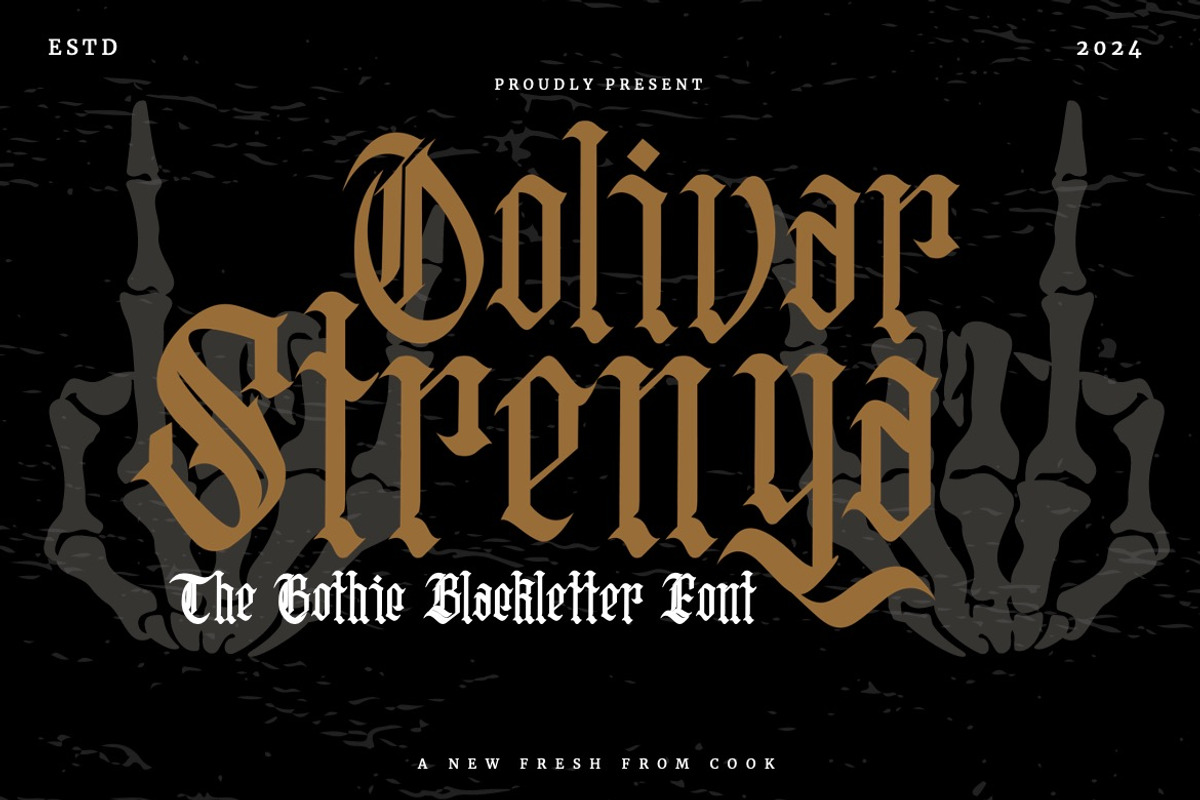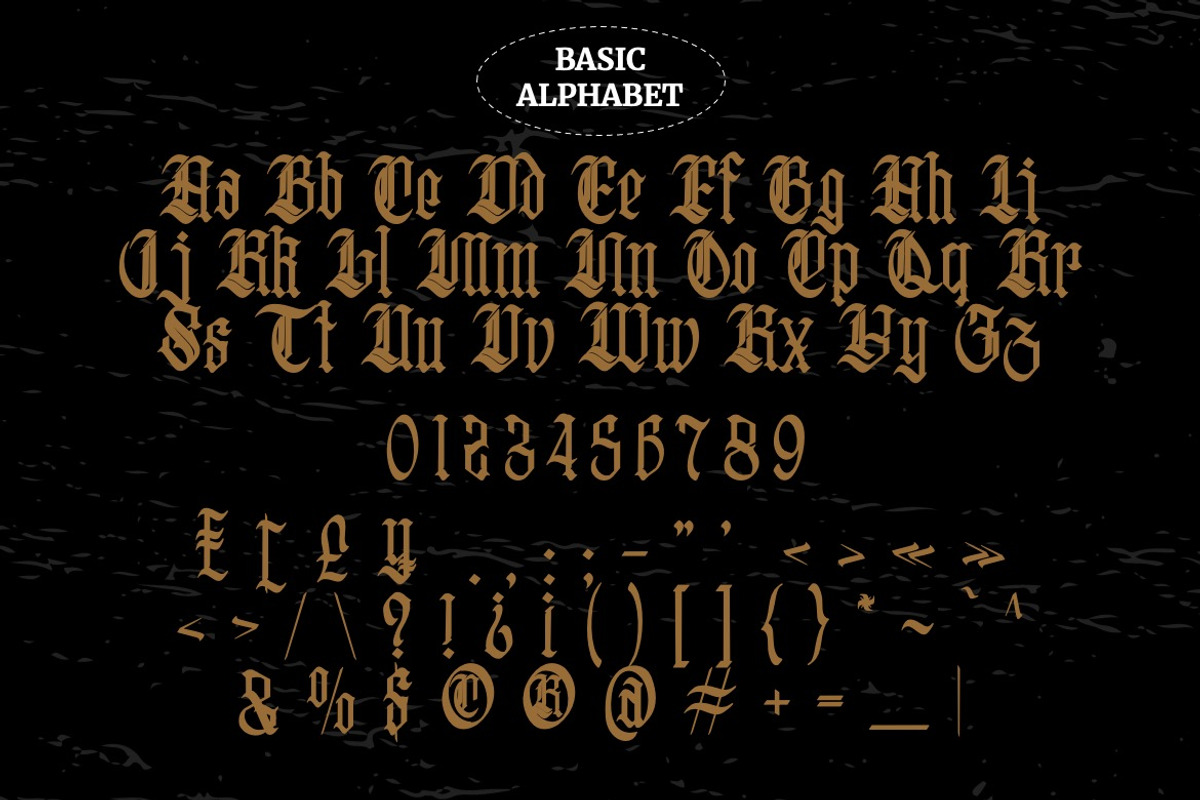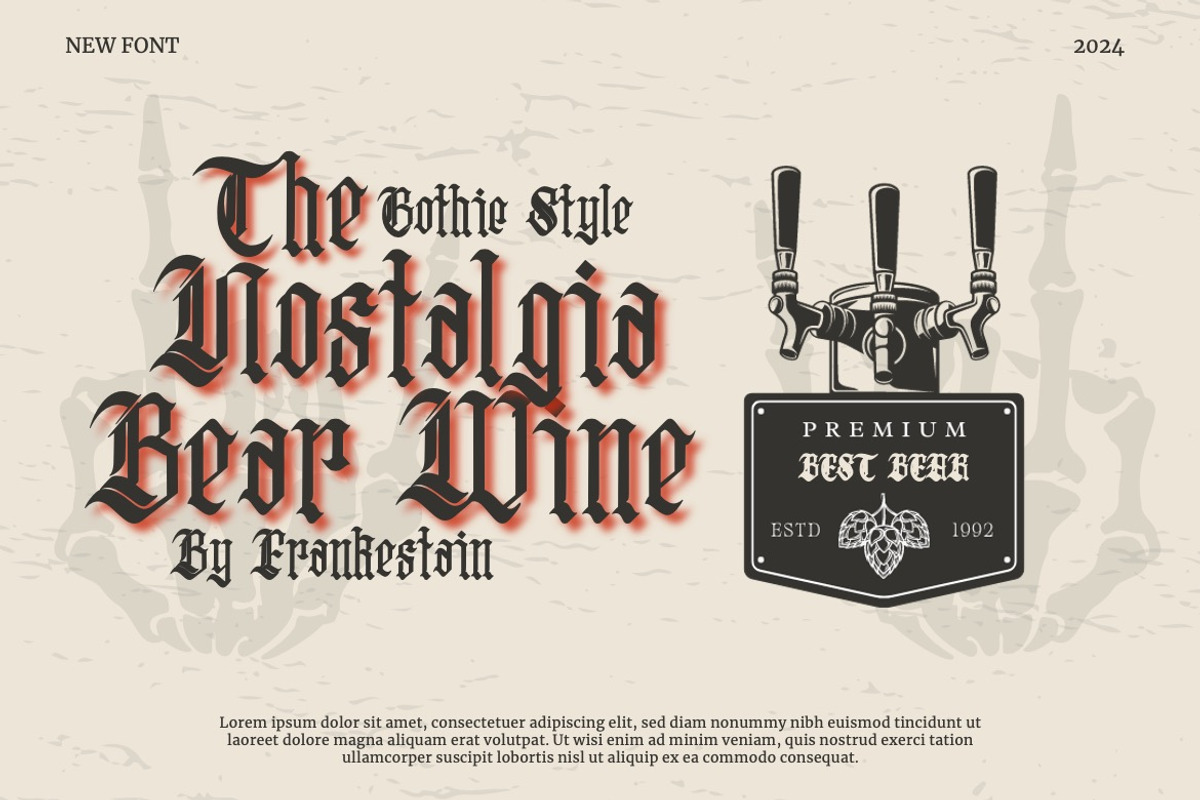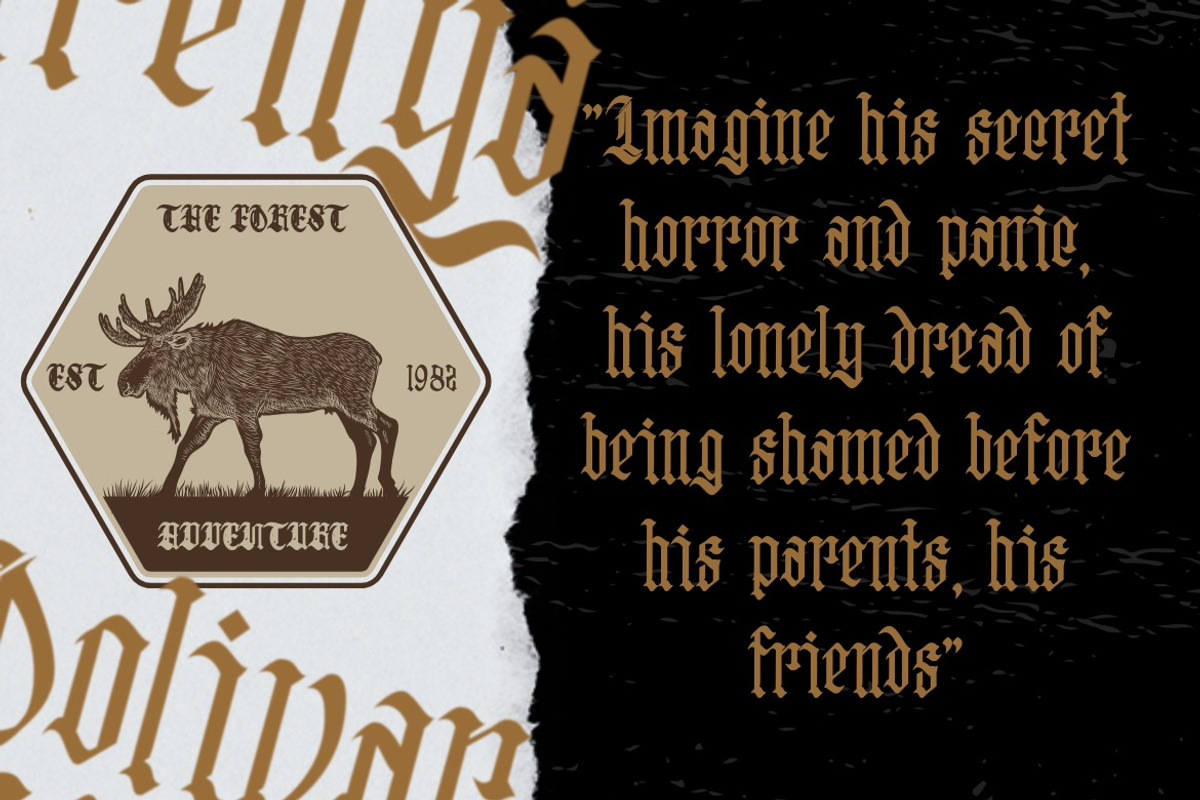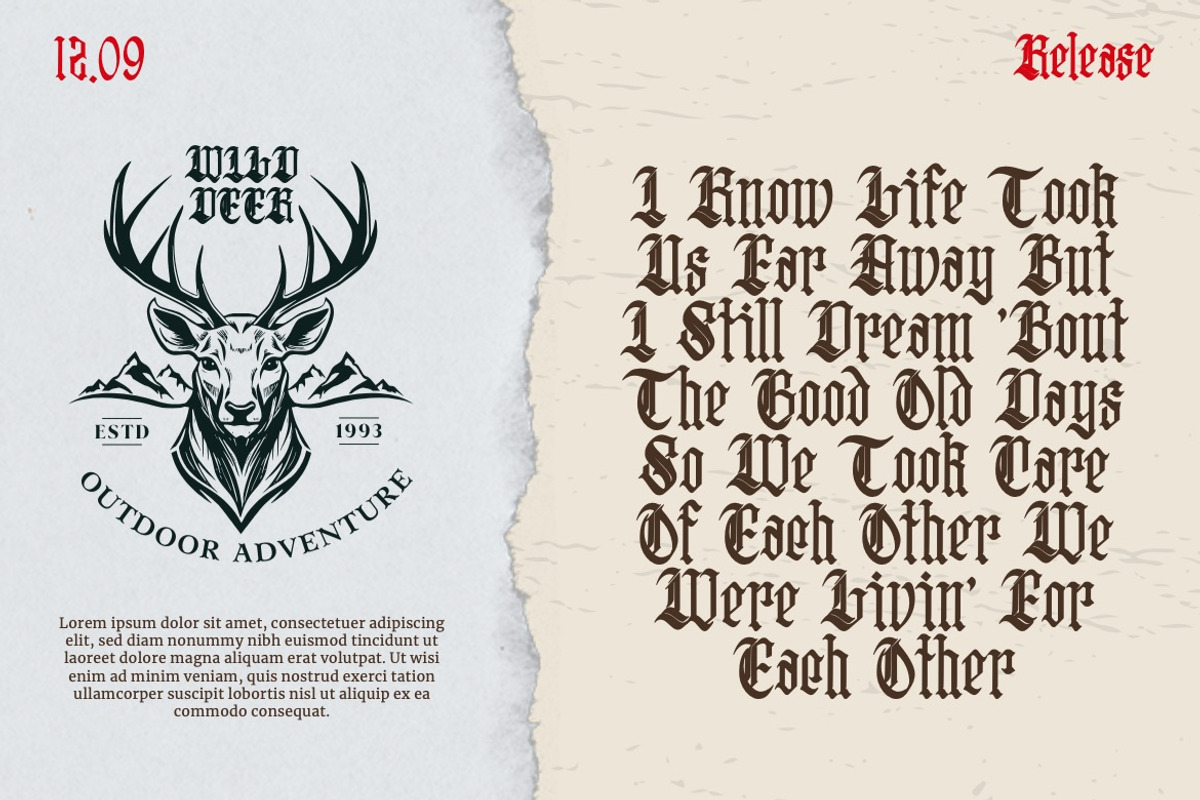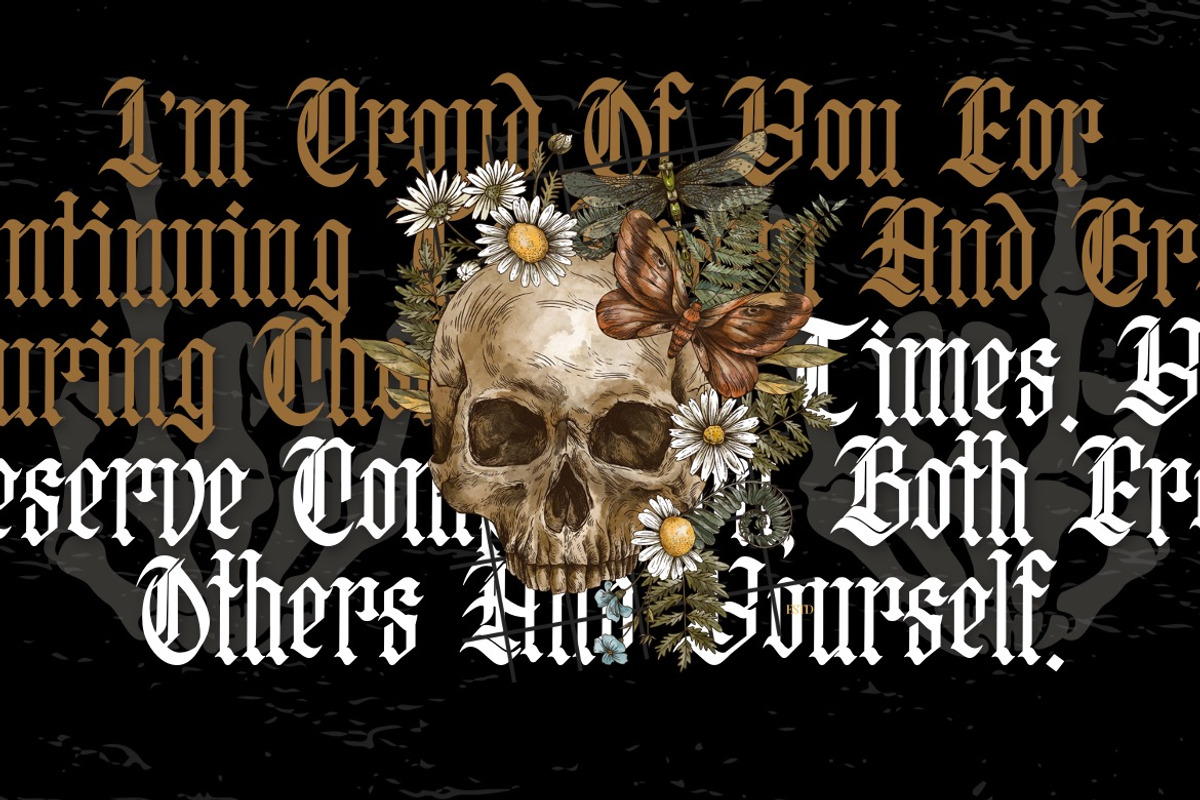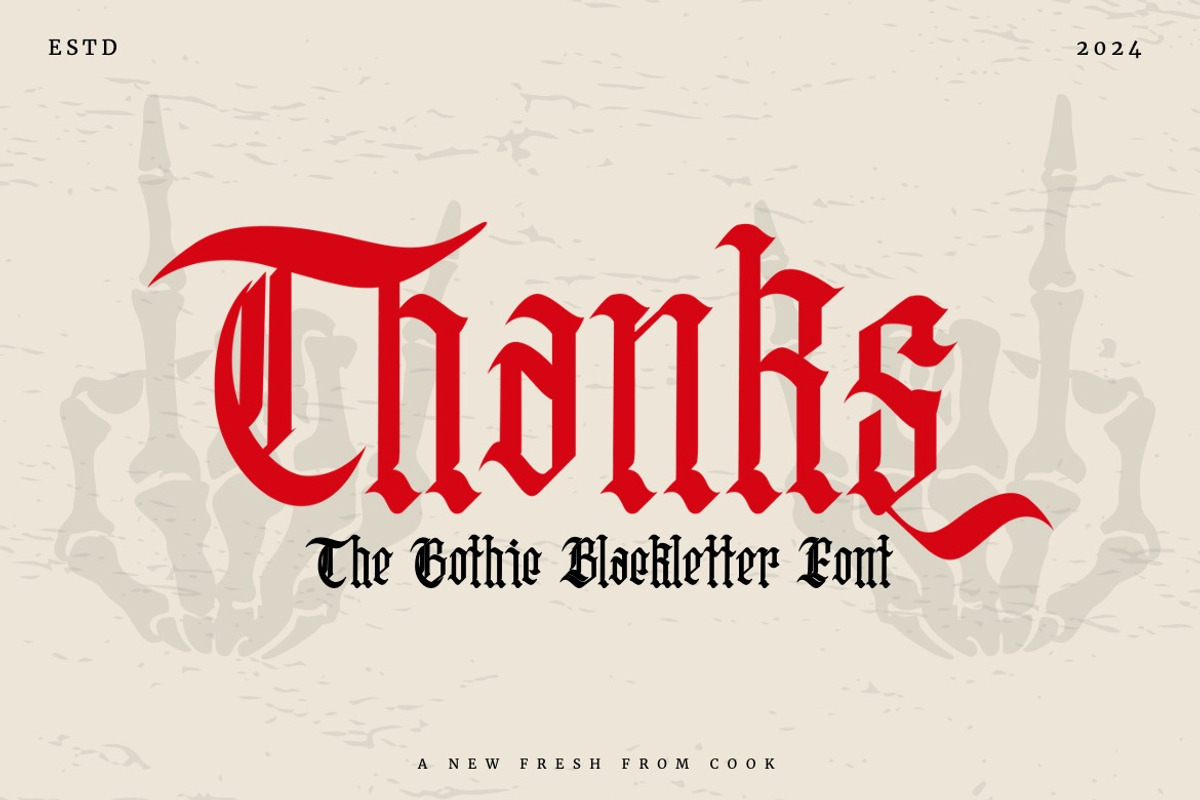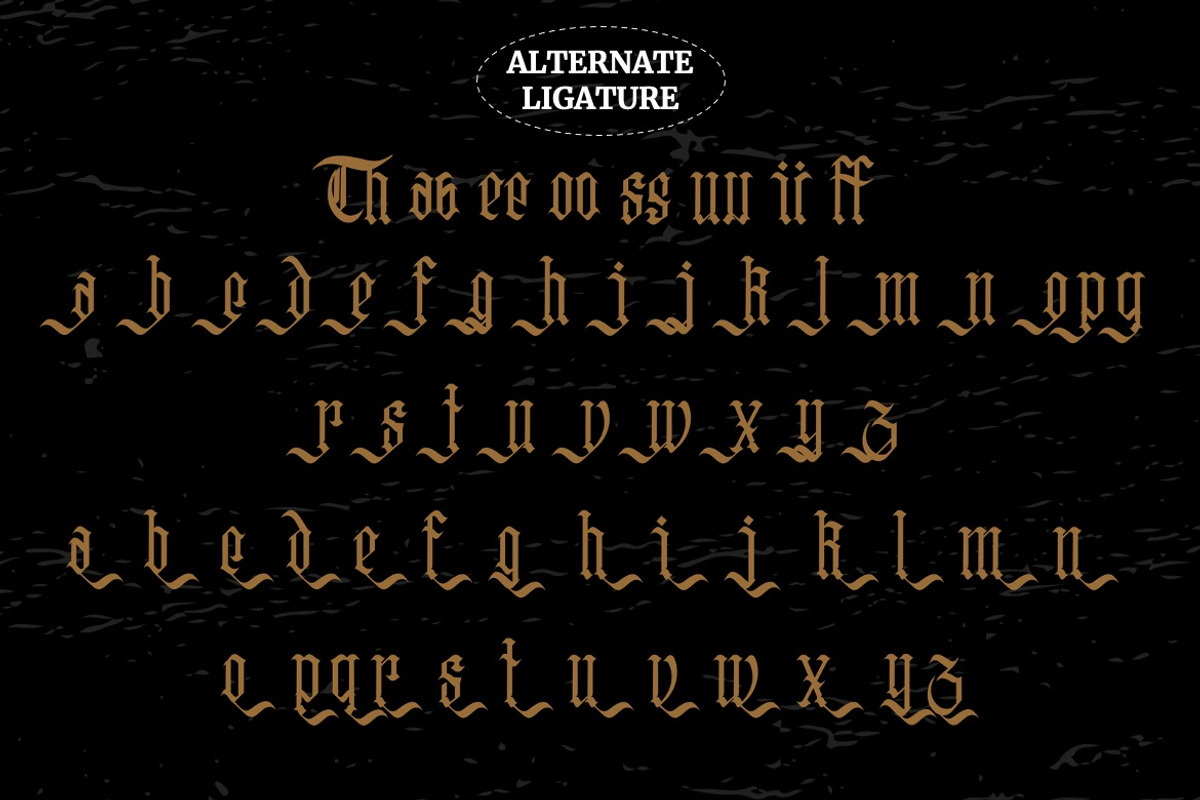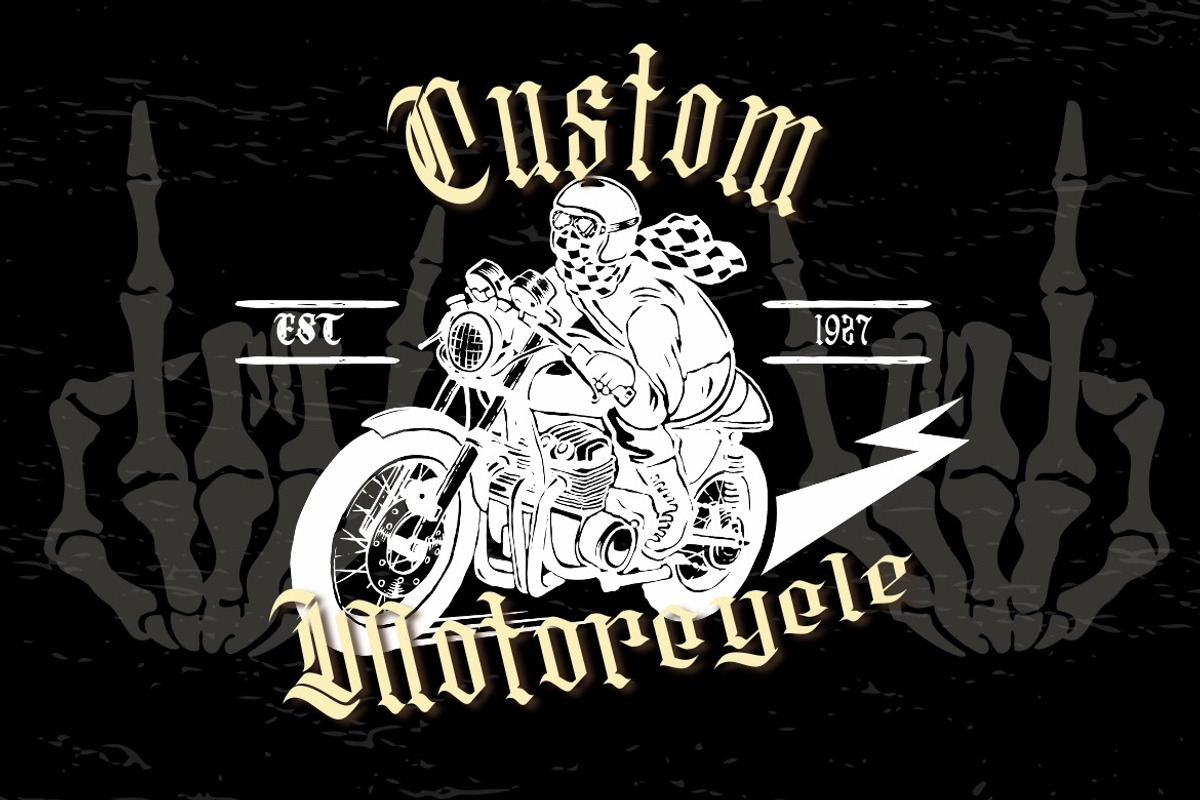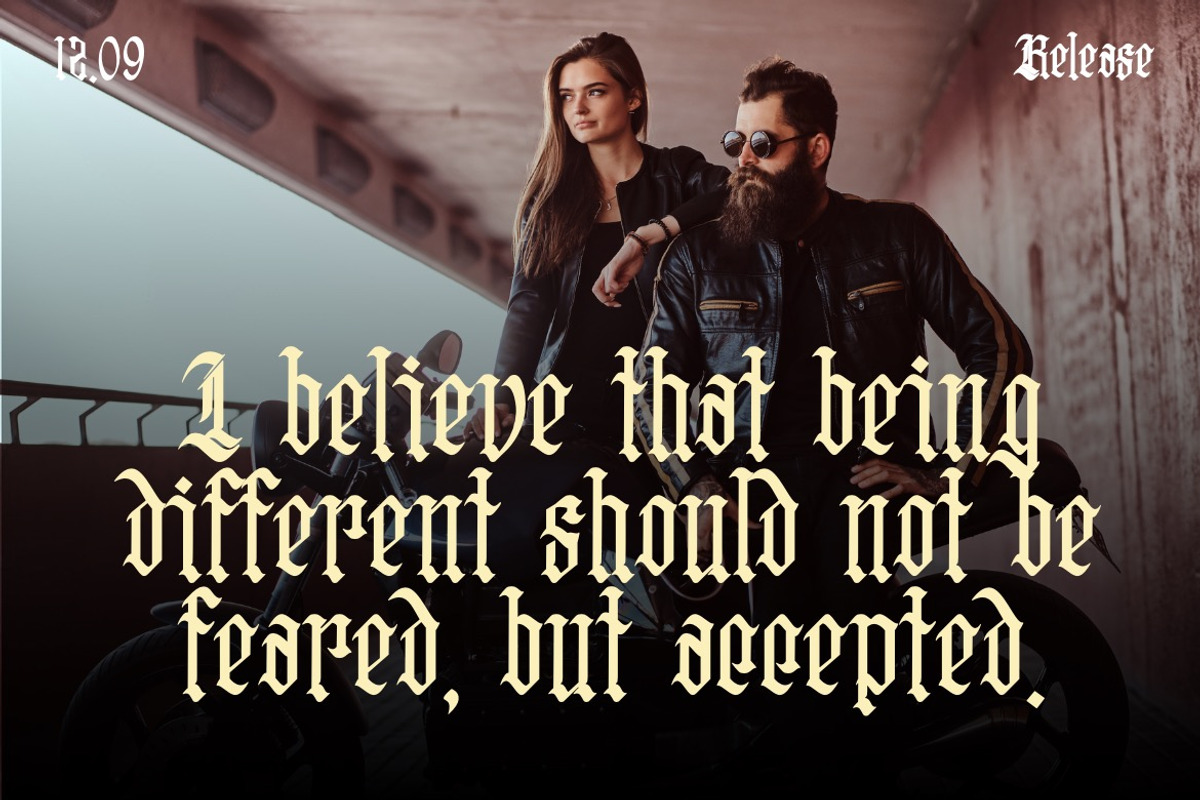
Oolivar Strenya - Gothic Blackletter
Introducing Oolivar Strenya - Gothic Blackletter
Oolivar Strenya - Gothic Blackletter is a bold blackletter fraktur display font that merges traditional Gothic aesthetics with modern impact. Its intricate letterforms feature sharp angles, dramatic strokes, and striking contrasts, embodying strength, authority, and historical charm. The bold weight enhances its commanding presence, making it ideal for designs that demand attention and sophistication.
• Alternate & Ligature